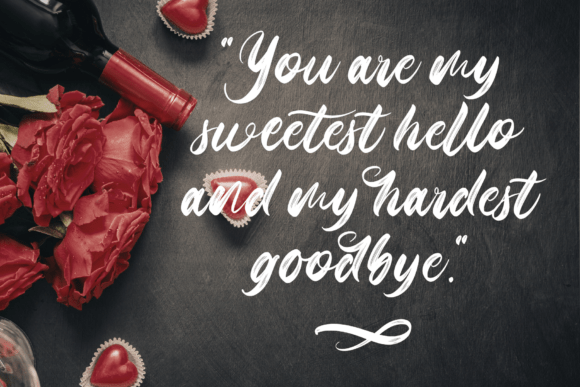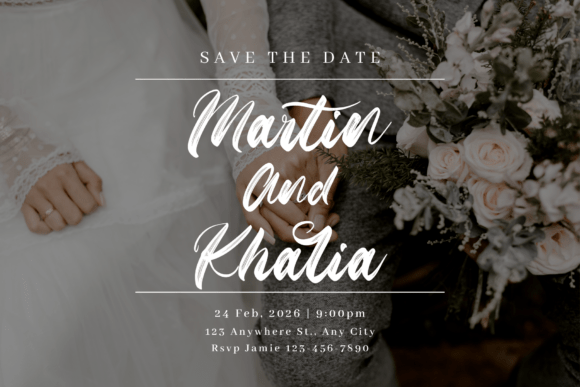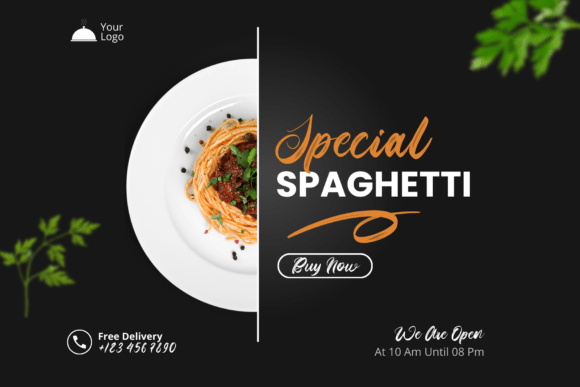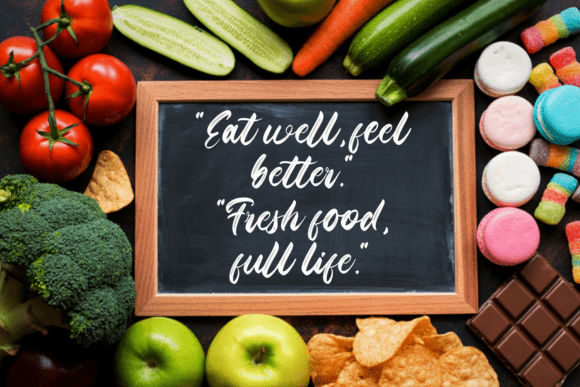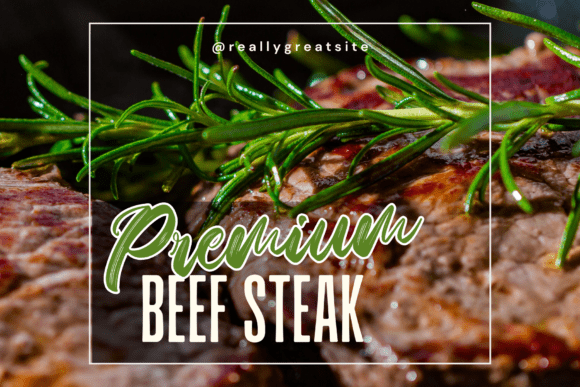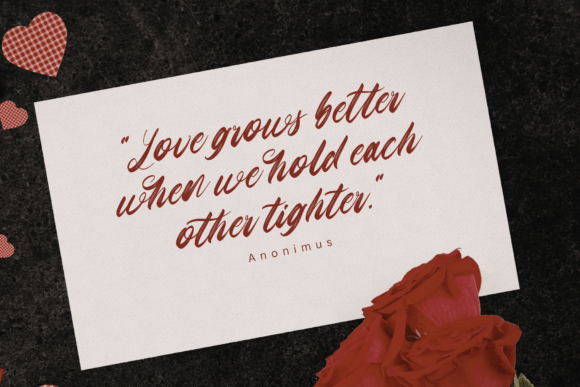
Introduction to Kamella Font
Have you ever been working on a design project and suddenly, the perfect font appears in your mind’s eye? For designers, this is a moment of pure magic – a spark of inspiration that sets the creative wheels in motion. For me, that moment came when I stumbled upon the elegant Kamella Font. Its flowing script and sophisticated ligatures are a true marvel of design, elevating any project with a touch of timeless elegance and contemporary charm.
As a valuable resource for designers, the Kamella Font offers a unique blend of classic sophistication and modern flair. Whether you’re working on a wedding theme, brand creation, or striking logo, Kamella’s seamless connections and transparent background make it the perfect choice. And the best part? This high-quality font is available for free download, making it a must-have in every designer’s toolkit.
Key Features of Kamella Font
- The Kamella Font is a high-quality design resource, perfect for creative projects that require a unique touch.
- This font features a transparent background, allowing for easy customization and blending with any design element.
- Kamella Font is available in a single weight, making it ideal for projects where a clean and simple design is desired.
- Kamella Font is designed with a high resolution, making it perfect for use in both print and digital design projects.
Honest Review: Kamella Font
I recently came across the Kamella Font, a popular design resource that’s gained a lot of attention in the creative community. As a designer, I was eager to see if it lived up to the hype.
- The Kamella Font offers a beautiful, modern aesthetic that’s perfect for a wide range of creative projects.
- The font is highly customizable, making it easy to adjust to your design needs.
- The transparent background feature is a nice touch, allowing for seamless integration with your design elements.
- The Kamella Font may not be suitable for projects that require a more traditional or classic look.
- The font can be a bit overwhelming for small text, so be sure to use it judiciously.
Overall, I’m impressed with the Kamella Font’s high quality and versatility. While it may have some limitations, it’s definitely a valuable addition to any designer’s toolkit. Whether you’re working on a high-end creative project or just need a reliable font for a quick design, the Kamella Font is definitely worth checking out.
Tips for Getting the Most Out of Kamella Font
To get the most out of Kamella Font, use it in combination with other design elements, such as images or graphics, to create visually appealing designs. Experiment with different font sizes, colors, and styles to find the perfect balance for your creative project.
Kamella Font is ideal for a variety of creative projects, including branding, marketing materials, and editorial content. Its high quality and versatility make it a valuable design resource for designers and non-designers alike.